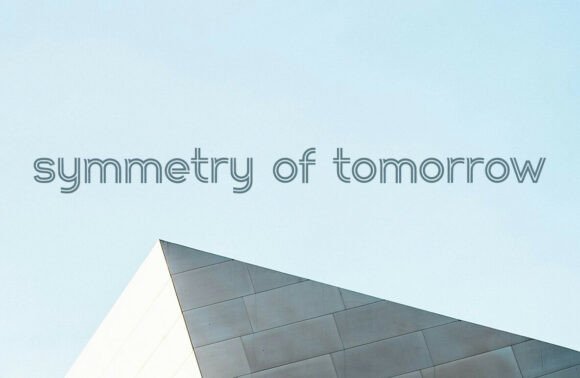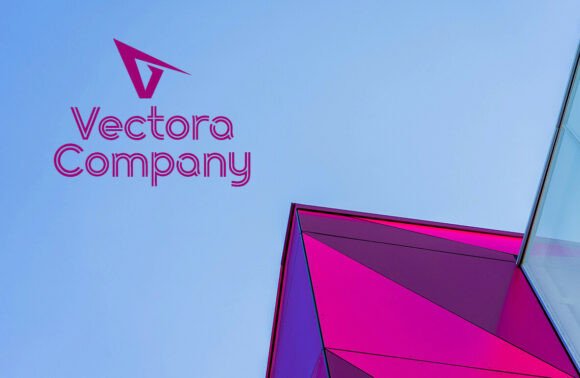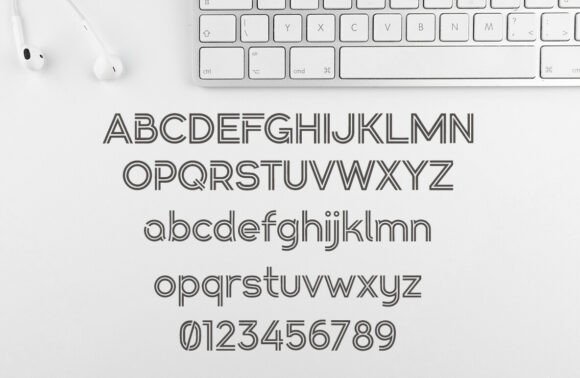
Discover the Power of Geometric Typography
Have you ever found yourself mesmerized by the perfect symmetry of a city skyline or the intricate patterns of a mosaic artwork? That’s the magic of geometric shapes, and it’s exactly what inspires the Geometric Font. This versatile typeface is designed to bring balance, harmony, and visual interest to your designs.
As a designer, you’re constantly on the lookout for tools that can help you create stunning visuals and convey your message effectively. The Geometric Font is an invaluable addition to your toolkit, allowing you to craft logos, monograms, posters, and product branding that exude modernity and sophistication. Its clean lines, precise shapes, and modular design make it an ideal choice for a wide range of creative projects.
Key Features of Geometric Font
- Unique Characteristics: Geometric Font features a unique geometric design, with clean lines, precise shapes, and a bold aesthetic.
- Character Set: The font includes a comprehensive character set, including uppercase and lowercase letters, numbers, punctuation marks, and special characters.
Designer Review: Geometric Font
Overall, I think the Geometric Font is a solid addition to any design project. ✨ It’s clean, modern, and versatile, making it perfect for a wide range of applications, from digital interfaces to print materials.
The font’s geometric shape-based design makes it highly legible, even at small font sizes. The font’s uniformity and simplicity also make it a great choice for branding and identity systems. ✨ Another advantage is that it’s highly customizable, allowing designers to adjust the font’s weight, spacing, and other properties to suit their needs.
However, I do have a few concerns about the font. ⚠️ Firstly, it may not be the best choice for text-heavy materials, as the font’s uniformity can make it feel a bit monotonous. Additionally, the font’s geometric design can make it difficult to read at very small sizes, particularly for those with visual impairments.
- Legible and modern design
- Suitable for branding, identity systems, and digital interfaces
- May not be suitable for text-heavy materials
- Can be difficult to read at very small sizes
Tips for Getting the Most Out of Geometric Font
Use Geometric Font for titles, headings, and emphasis in your designs. It’s particularly effective for modern, minimalist designs. Experiment with different font sizes, colors, and styles to create visually appealing combinations.
Geometric Font is suitable for a wide range of applications, including:
– Modern branding and logos
– Minimalist business cards and stationery
– Graphic novels and comic books
– Digital signage and displays
Alternatives to Geometric Font
1. Modern Sans
A modern sans-serif font, Modern Sans is ideal for digital interfaces and publications where clarity and readability are crucial. It offers a clean and minimalist aesthetic, making it perfect for websites, apps, and magazines. Compared to Geometric Font, Modern Sans is more rounded and friendly, while Geometric Font is more angular and geometric.
2. Futura
Futura is a geometric sans-serif font that is often used in futuristic and minimalist designs. It is ideal for headlines, titles, and branding where a strong, modern look is desired. Futura is similar to Geometric Font in its geometric shape and clean lines, but it is more condensed and has a more dramatic feel.
- The level of formality and sophistication required
- The size and scale of the font in your design
- The color and background of the font
Q: Can I use Geometric Fonts for digital design, such as web and mobile apps?
Yes, Geometric Fonts are well-suited for digital design. In fact, they are often used in digital design because of their clarity and legibility on screens. However, keep in mind that some Geometric Fonts may not be optimized for very small sizes or low-resolution displays. Be sure to test your font choice on a variety of devices